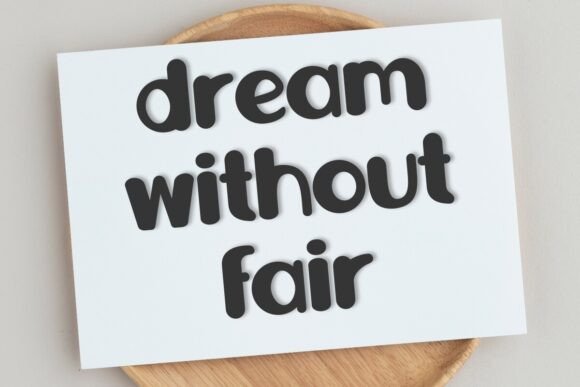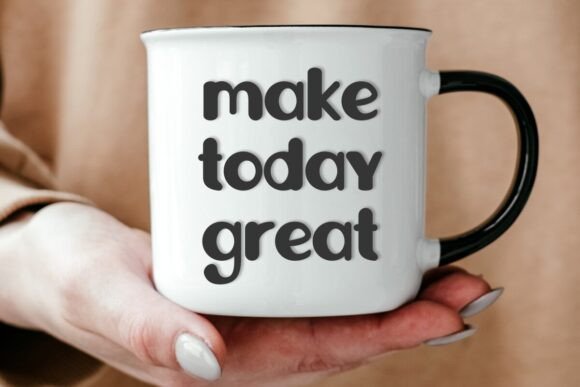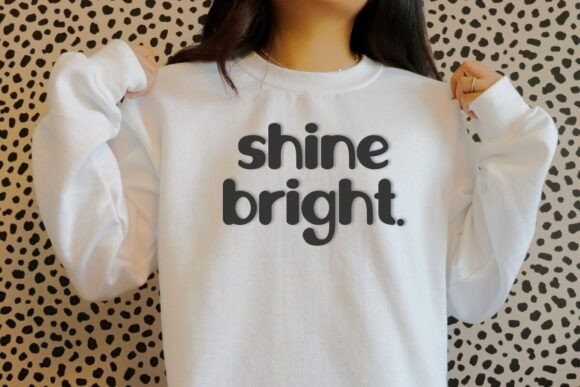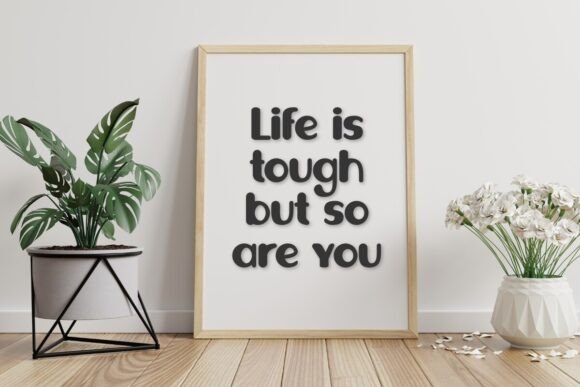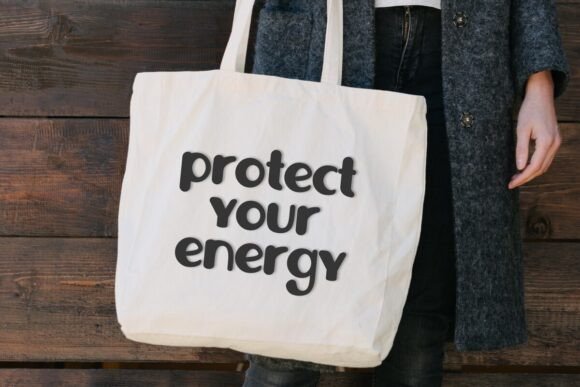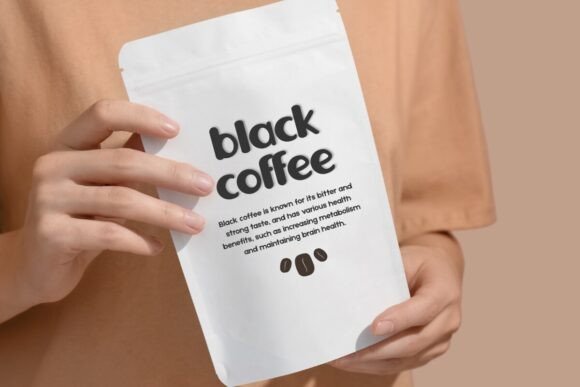
Introduction to Simple Bubble Font
Have you ever been working on a creative project and stumbled upon the perfect font that instantly elevates your design? For many designers, this moment is like finding a treasure chest overflowing with inspiration. And, for those who love playful typography, the Simple Bubble Font is sure to become a go-to favorite. This charming display font is a delightful blend of whimsy and clarity, making it perfect for a variety of design projects, from children’s books to invitations and branding.
What sets Simple Bubble Font apart is its unique bubble-shaped design, which exudes a sweet charm that draws attention with its charming personality. With its high-quality design and transparent background, this font is a valuable resource for designers looking to add a touch of warmth and personality to their work. Whether you’re working on a free download project or a paid design gig, Simple Bubble Font is sure to bring a smile to your client’s face.
Key Features of Simple Bubble Font
- High-quality design: This font features clean, simple lines and a minimalist aesthetic, making it perfect for modern designs.
- Perfect for creative projects: The Simple Bubble Font is ideal for use in branding, advertising, and other design projects where a clean, modern look is required.
Honest Review: Simple Bubble Font
As a designer, I’ve had the chance to work with a wide range of fonts, but Simple Bubble Font caught my eye for its unique design and versatility. I downloaded it for free, and I must say it’s been a valuable addition to my design resource library.
What works well about Simple Bubble Font is its high-quality design, which makes it perfect for creative projects that require a touch of whimsy. The font is available with a transparent background, allowing for seamless integration with other design elements. The bubble-like design elements also make it easy to create visually appealing graphics and icons.
- ✨ Unique and playful design
- ✨ High-quality and crisp font
- ✨ Versatile for various design projects
- ✨ Available with transparent background
One limitation of Simple Bubble Font is that it may not be suitable for formal or professional projects where a more traditional font is required. Additionally, the font may be too playful for some designers who prefer a more minimalist aesthetic.
Overall, I’m impressed with Simple Bubble Font and would highly recommend it to designers looking for a fun and creative font to add to their design library.
Tips for Getting the Most Out of Simple Bubble Font
Use the Simple Bubble Font for creative projects that require a playful, whimsical touch. You can also use it for free download resources, such as social media graphics or email templates. To get the most out of the font, experiment with different font sizes, colors, and styles to create a unique look.
The Simple Bubble Font is ideal for designs that require a high-quality, transparent background. Some common use cases include:
- Email templates
- Party invitations